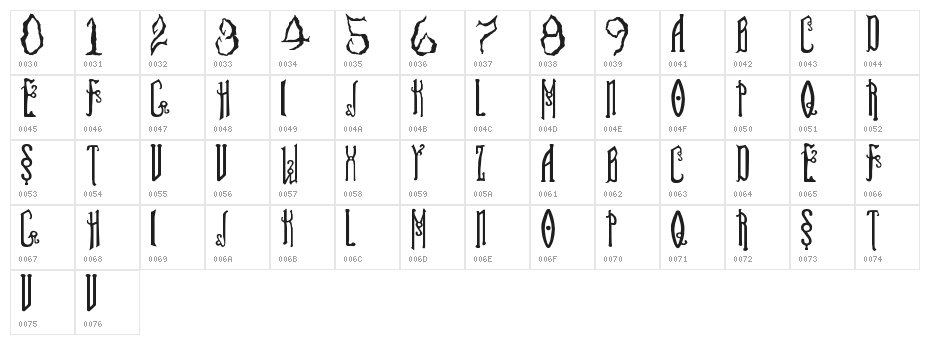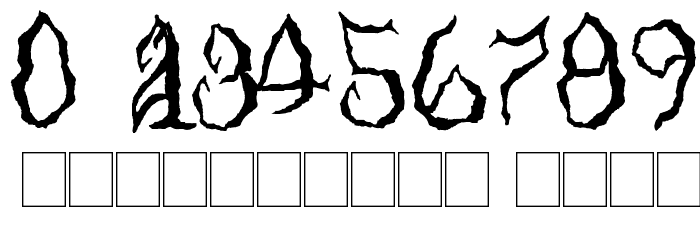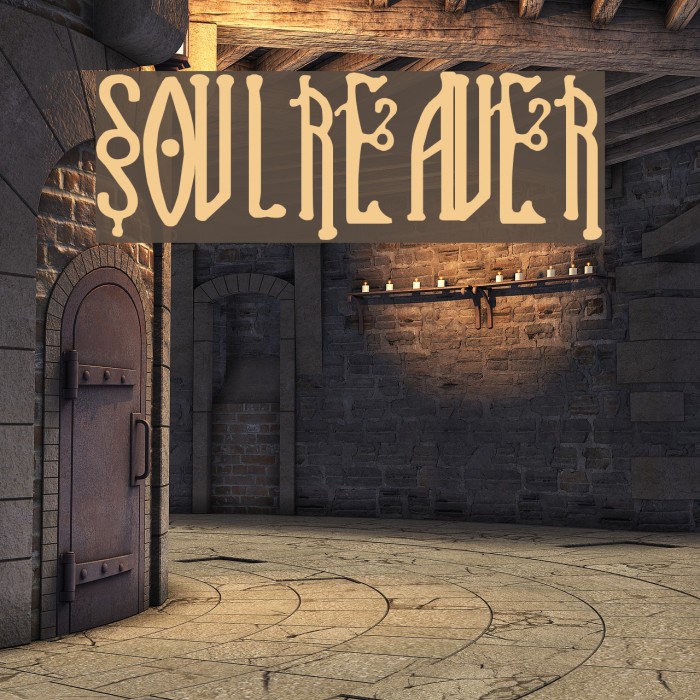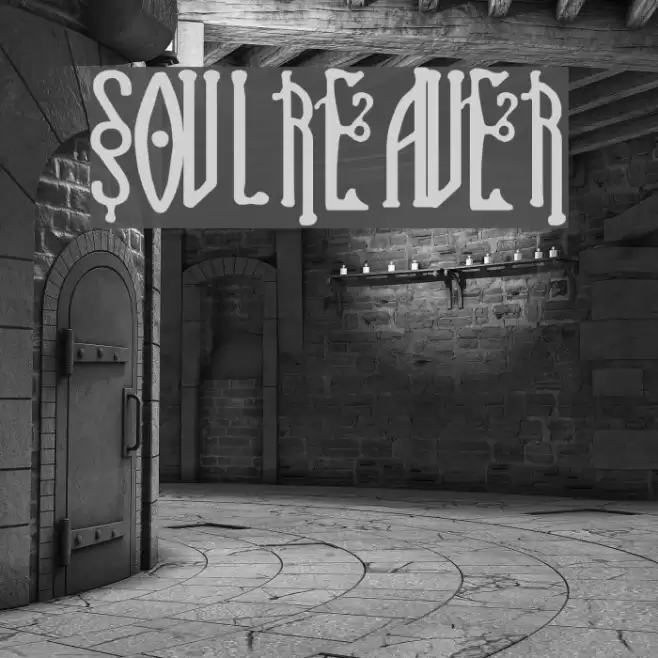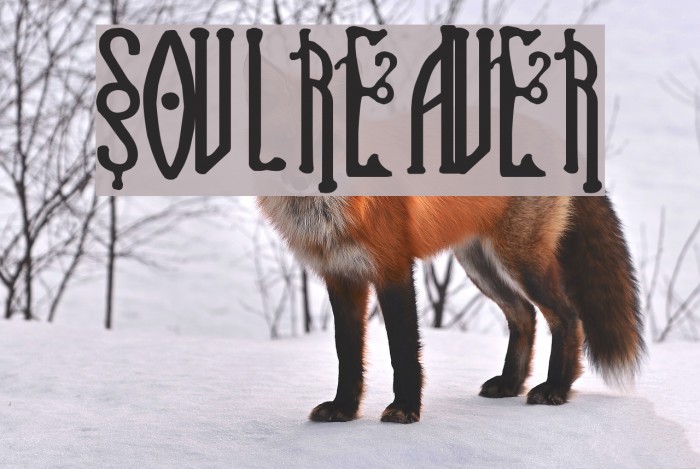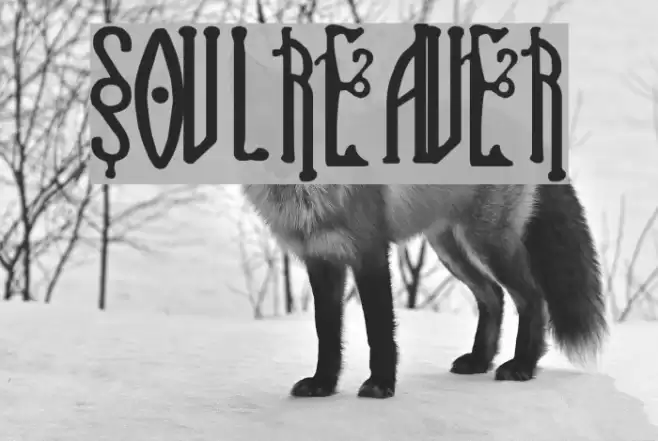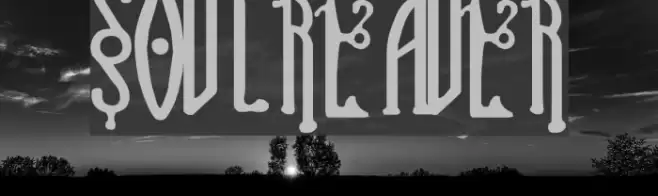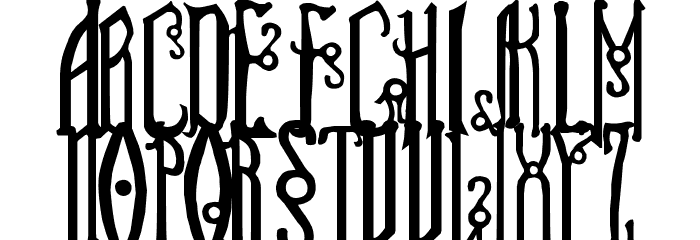
Soul Reaver Font
Soul Reaver Description
This font features a gothic and medieval-inspired design, characterized by its tall, narrow letters with intricate, swirling details. The uppercase letters are particularly ornate, with elongated vertical strokes and decorative elements that evoke a sense of mystery and antiquity. The numbers have a rugged, almost hand-carved appearance, adding to the font's overall dark and enigmatic aesthetic. The special characters maintain the same intricate style, ensuring consistency throughout the typeface. This font is ideal for projects that require a dramatic and historical touch, such as fantasy-themed designs or horror movie titles.
| Width | Condensed |
| Overall Style | Gothic, Medieval |
| Proposed Projects | Ideal for fantasy-themed designs, horror movie titles, gothic event posters, and historical fiction book covers. |